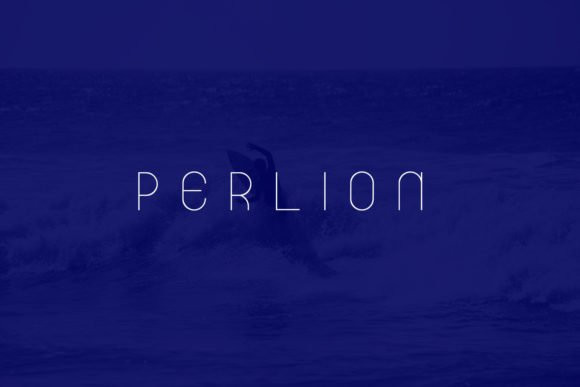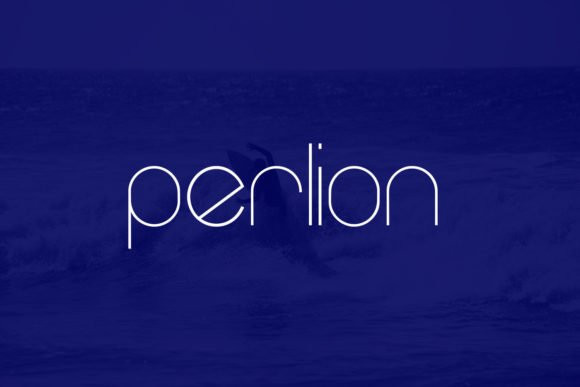
Perlion Font
Perlion is a simple, clean and thin lettered display font. This font is ideal for writing web designs, business cards, or pretty much anything else that requires a modern touch.